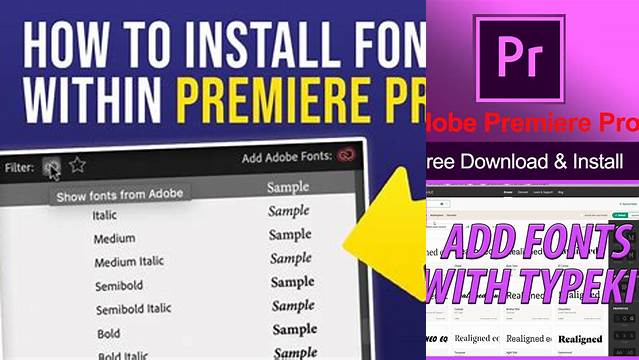
Free Adobe Premiere Pro Fonts: Download Now!
Hey guys! Ever feel like your video projects are missing that special something? You know, that visual oomph that makes viewers go, "Wow!"? Chances are, your fonts might be the culprit. Let's dive into the world of Adobe Premiere Pro fonts and how snagging a free font pack can seriously level up your editing game.
1. Why Use Custom Fonts in Adobe Premiere Pro?
Okay, so you might be thinking, "Why bother with custom fonts? The default ones are fine, right?" Well, not exactly. Using custom fonts in Adobe Premiere Pro isn't just about aesthetics; it's about communication. The right font can set the mood, convey the tone, and reinforce your message, making your videos more engaging and professional. Think about it: a playful cartoon font for a kids' video versus a sleek, modern font for a corporate presentation. Big difference, huh?
Choosing the right custom fonts allows your video projects to stand out from the crowd. In a sea of videos using the same generic fonts, yours can shine with a unique visual identity. A well-chosen font reinforces branding, creating a cohesive and memorable experience for your audience. Each font has its own personality and evokes different emotions. Whether you’re aiming for elegance, playfulness, or seriousness, the right font helps to convey the intended tone and mood.
Finally, using the perfect custom font makes your videos more accessible and readable. Clear, legible fonts ensure that your message is easily understood by all viewers. Factors like font size, color, and spacing contribute to overall readability and viewer engagement.
4. Best Free Fonts for Different Video Styles
So, what kind of free fonts should you be looking for? It really depends on the style of your video, but here are a few ideas to get you started:
- Clean and Modern: Montserrat, Open Sans, Lato. These are great for corporate videos, tutorials, and anything that needs a professional touch.
- Creative and Playful: Bangers, Luckiest Guy, Amatic SC. Perfect for kids' content, vlogs, and anything that needs a bit of fun.
- Elegant and Classic: Playfair Display, Raleway, EB Garamond. Ideal for weddings, documentaries, and projects that require a touch of sophistication.
- Bold and Impactful: Bebas Neue, Oswald, Impact. Use these for titles, headlines, and anything that needs to grab attention.
5. Common Issues and Troubleshooting Font Problems in Premiere Pro
Even with the best-laid plans, things can sometimes go wrong. Here are some common issues you might encounter when working with fonts in Premiere Pro, and how to fix them:
- Font Not Showing Up: Make sure you've restarted Premiere Pro after installing the font. Also, double-check that the font file is actually installed correctly on your system.
- Font Looks Different in Premiere Pro: This can happen if Premiere Pro is using a different version of the font than the one you intended. Try clearing your font cache in Premiere Pro's preferences.
- Font is Pixelated or Blurry: This usually happens when you're scaling the font up too much. Try using a higher-resolution font or adjusting the anti-aliasing settings in Premiere Pro.
6. Maximizing the Impact of Your Font Choices
Choosing great fonts is only half the battle. You also need to use them effectively to maximize their impact. Here are some tips:
- Use Font Hierarchy: Use different font sizes and weights to create a visual hierarchy and guide the viewer's eye.
- Contrast is Key: Make sure your font has enough contrast with the background so it's easy to read.
- Limit Your Font Choices: Don't go overboard with too many different fonts. Stick to two or three fonts that complement each other.
- Consider Your Audience: Choose fonts that are appropriate for your target audience and the overall tone of your video.
7. Font Licensing: What You Need to Know
Before you go wild downloading free fonts, it's important to understand font licensing. Just because a font is free doesn't mean you can use it however you want.
- Personal Use: Most free fonts are fine for personal projects, like home videos or school assignments.
- Commercial Use: If you're using the font for a business project (like a marketing video or a client's project), you need to make sure the license allows commercial use. Some fonts require you to purchase a license for commercial use, even if they're free for personal use.
- Read the License: Always, always read the license agreement that comes with the font. It will tell you exactly what you can and can't do with the font.
8. Creating Your Own Font Pack
Feeling adventurous? You can actually create your own font pack! This is a great way to build a consistent visual brand for your videos.
- Choose a Theme: Think about the overall style and tone you want to convey with your font pack.
- Select Complementary Fonts: Choose a few fonts that work well together, including a headline font, a body text font, and maybe a decorative font.
- Organize Your Fonts: Create a folder to store your font files, and give them descriptive names so you can easily find them later.
- Share Your Font Pack (Optional): If you're feeling generous, you can share your font pack with other video editors!
9. Font Pairing: The Art of Combining Fonts Effectively
Font pairing is the art of combining two or more fonts in a way that looks visually appealing and harmonious. Here’s how to master this skill:
- Contrast is Key: Pair fonts with contrasting styles to create visual interest. For example, combine a serif font with a sans-serif font.
- Consider Hierarchy: Use different font sizes and weights to establish a clear hierarchy. The headline font should be larger and bolder than the body text font.
- Limit Your Choices: Stick to two or three fonts per project to avoid visual clutter.
- Test Your Pairings: Experiment with different combinations and get feedback from others to see what works best.
10. Using Font Management Tools
If you're a font enthusiast, you might want to consider using a font management tool. These tools help you organize, activate, and deactivate fonts, making it easier to find the perfect font for your project.
- FontBase: A free and popular font manager with a clean and intuitive interface.
- NexusFont: Another free option with a wide range of features, including font previews and tagging.
- FontExplorer X Pro: A commercial font manager with advanced features like font conflict detection and auto-activation.
11. How Fonts Affect Video SEO
Did you know that fonts can actually affect your video SEO? While fonts aren't a direct ranking factor, they can influence viewer engagement, which can indirectly impact your SEO.
- Readability: Clear, legible fonts make it easier for viewers to understand your message, which can increase watch time.
- Professionalism: High-quality fonts can make your videos look more professional, which can improve viewer perception and trust.
- Branding: Consistent use of fonts can help reinforce your brand identity, which can improve brand recognition and loyalty.
12. Free Font Resources for Different Languages
Need free font resources for languages other than English? Here are some great options:
- Google Noto Fonts: A comprehensive collection of fonts that support over 800 languages.
- SIL Open Font License (OFL) Fonts: Many OFL fonts support multiple languages and scripts.
- Language-Specific Font Foundries: Search for font foundries that specialize in fonts for specific languages.
13. Mastering Typography in Premiere Pro
Mastering typography is key to creating visually appealing and effective videos. Here are some tips for improving your typography skills in Premiere Pro:
- Learn the Basics: Familiarize yourself with basic typography principles like kerning, tracking, and leading.
- Experiment with Different Fonts: Don't be afraid to try new fonts and combinations.
- Pay Attention to Detail: Small details like font size, color, and spacing can make a big difference.
- Get Feedback: Ask others for their opinions on your typography choices.
14. Font Animation Techniques in Premiere Pro
Font animation can add a dynamic and engaging element to your videos. Here are some popular font animation techniques you can try in Premiere Pro:
- Basic Keyframe Animation: Animate the position, scale, and rotation of your text using keyframes.
- Text Animators: Use Premiere Pro's built-in text animators to create complex and customizable animations.
- Motion Graphics Templates (MOGRTs): Download and customize pre-made font animation templates.
15. The Psychology of Fonts: How Fonts Evoke Emotions
Fonts have the power to evoke different emotions and associations. Understanding the psychology of fonts can help you choose the right fonts for your video projects.
- Serif Fonts: Often associated with tradition, authority, and elegance.
- Sans-Serif Fonts: Typically perceived as modern, clean, and approachable.
- Script Fonts: Can convey creativity, personality, and warmth.
- Display Fonts: Designed to grab attention and make a statement.
16. Integrating Fonts with Motion Graphics Templates
Motion Graphics Templates (MOGRTs) can be a great way to add professional-looking animations to your videos. Here’s how to integrate fonts with MOGRTs in Premiere Pro:
- Choose the Right Fonts: Select fonts that complement the style and tone of the MOGRT.
- Customize the Fonts: Adjust the font size, color, and spacing to match your project’s branding.
- Ensure Readability: Make sure the fonts are easy to read, even when animated.
17. Advanced Text Effects in Premiere Pro
Premiere Pro offers a variety of advanced text effects that can take your typography to the next level. Here are some popular effects to try:
- Glow: Add a soft glow around your text to make it stand out.
- Shadow: Create a shadow effect to give your text depth and dimension.
- Stroke: Add a border around your text to make it more visible.
- Gradient: Apply a gradient fill to your text for a colorful and eye-catching look.
18. Font Optimization for Different Platforms
When creating videos for different platforms, it’s important to optimize your fonts for each platform’s specific requirements. Here are some tips:
- YouTube: Use clear, legible fonts that are easy to read on small screens.
- Instagram: Choose fonts that are visually appealing and grab attention quickly.
- Facebook: Select fonts that are consistent with your brand’s identity.
- TikTok: Opt for fonts that are trendy and engaging.
19. Backing Up Your Font Collection
Protect your font collection by creating regular backups. Here’s how to back up your fonts on Windows and macOS:
- Windows: Copy the font files from the
C:\Windows\Fontsfolder to an external drive or cloud storage. - macOS: Copy the font files from the
/Library/Fontsfolder to an external drive or cloud storage.
20. Converting Fonts for Web Use
If you’re using fonts on a website, you may need to convert them to web-friendly formats like WOFF and WOFF2. Here are some online font converters:
- Font Squirrel Webfont Generator: A free tool that converts fonts to various web formats.
- Transfonter: Another free option with a simple and intuitive interface.
21. Finding Inspiration for Font Choices
Need some inspiration for your font choices? Here are some resources to check out:
- Typewolf: A website that showcases great typography examples from around the web.
- Fonts in Use: A collaborative archive of real-world typography examples.
- Pinterest: Search for typography boards to discover new font pairings and design ideas.
22. Font Trends: What's Popular Now?
Stay up-to-date with the latest font trends to keep your videos looking fresh and modern. Some current trends include:
- Bold Sans-Serif Fonts: These fonts are clean, modern, and easy to read.
- Retro Fonts: Fonts with a vintage or nostalgic feel are making a comeback.
- Handwritten Fonts: These fonts add a personal and authentic touch to your designs.
23. Legal Considerations When Using Fonts
Be aware of the legal considerations when using fonts. Make sure you have the appropriate licenses for the fonts you’re using, especially for commercial projects.
- Read the License Agreement: Always read the license agreement that comes with the font.
- Respect Copyright Laws: Don’t use fonts without permission from the copyright holder.
- Avoid Font Piracy: Don’t download fonts from untrusted sources.
24. Font Resources for Specific Niches
Looking for font resources for specific niches like gaming, fashion, or food? Here are some tips:
- Search for Niche-Specific Font Foundries: Some font foundries specialize in fonts for certain industries.
- Browse Online Font Marketplaces: Filter your search by category to find fonts that are relevant to your niche.
- Look at Examples from Your Industry: Analyze the fonts used by other brands in your niche for inspiration.
25. Tips for Choosing Readable Fonts
Readability is crucial for ensuring that your message is effectively communicated. Here are some tips for choosing readable fonts:
- Consider Font Size: Choose a font size that is large enough to be easily read.
- Pay Attention to Contrast: Make sure there is enough contrast between the font and the background.
- Avoid Overly Decorative Fonts: These fonts can be difficult to read.
26. Maintaining a Consistent Font Style Across Projects
Maintaining a consistent font style across projects can help reinforce your brand identity and create a cohesive look. Here’s how to do it:
- Create a Font Style Guide: Document your font choices and how they should be used.
- Use Font Templates: Create templates with pre-defined font styles for different types of projects.
- Stay Consistent: Stick to your font style guide and templates across all your projects.
27. The Importance of Kerning and Tracking
Kerning and tracking are essential for achieving professional-looking typography. Here’s why they matter:
- Kerning: Adjusts the spacing between individual letters to create a balanced and visually appealing look.
- Tracking: Adjusts the overall spacing between all letters in a word or phrase.
28. Combining Fonts with Images Effectively
Combining fonts with images effectively can enhance the overall visual impact of your videos. Here are some tips:
- Choose Fonts That Complement the Images: Select fonts that match the style and tone of the images.
- Create Visual Hierarchy: Use different font sizes and weights to establish a clear hierarchy.
- Ensure Readability: Make sure the fonts are easy to read, even when placed on top of images.
29. Using Variable Fonts in Premiere Pro
Variable fonts offer a flexible and efficient way to customize fonts in Premiere Pro. Here’s how to use them:
- Choose Variable Fonts: Select fonts that support variable font technology.
- Adjust Font Axes: Use Premiere Pro’s font controls to adjust the weight, width, and other axes of the variable font.
- Experiment with Different Styles: Explore the different stylistic possibilities offered by variable fonts.
30. Resources for Learning More About Typography
Want to deepen your knowledge of typography? Here are some resources to check out: